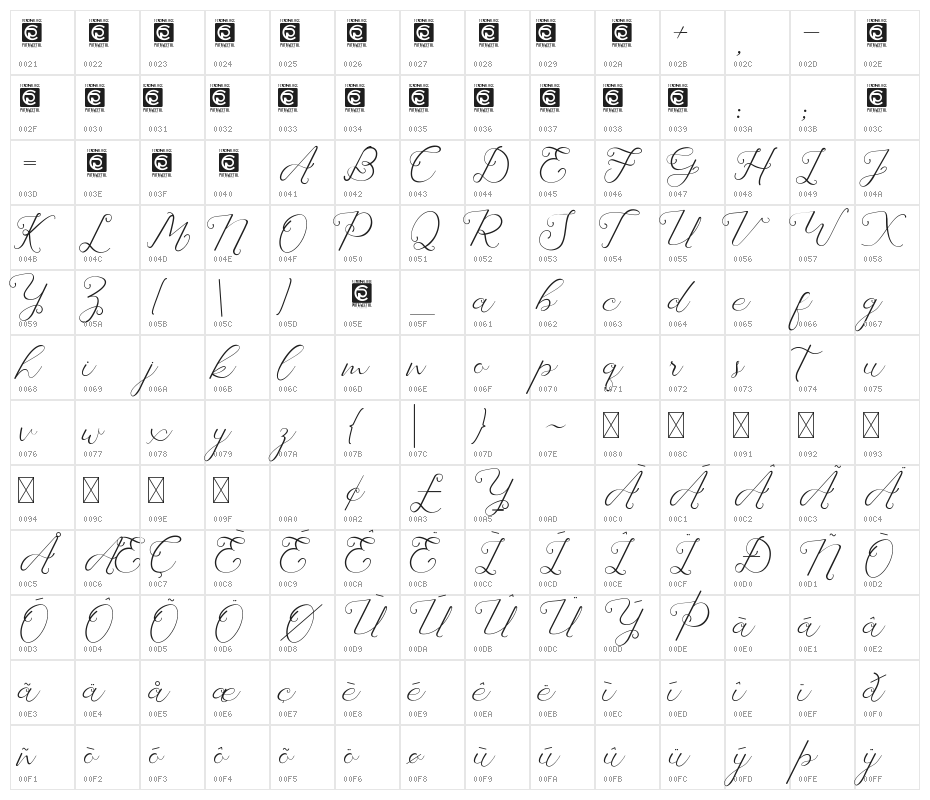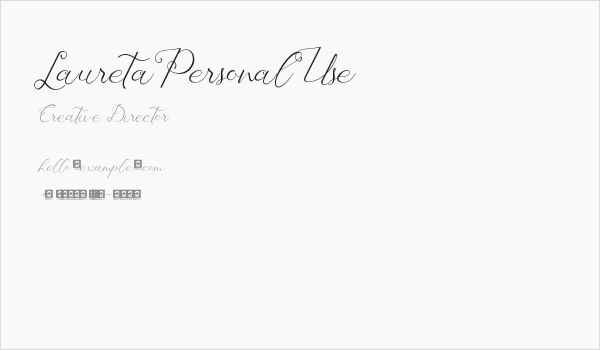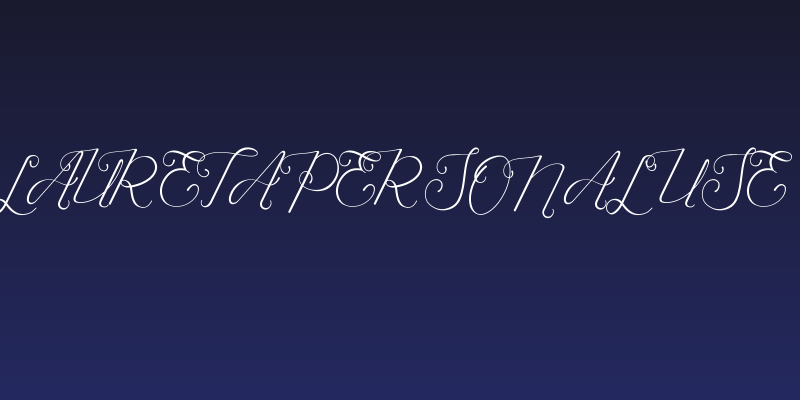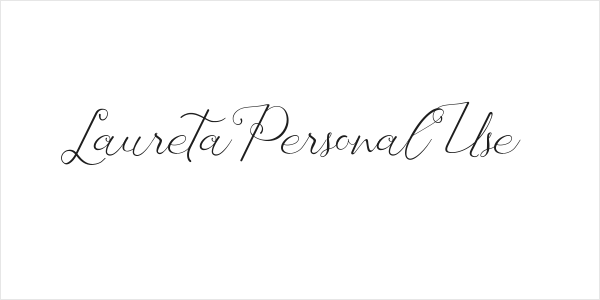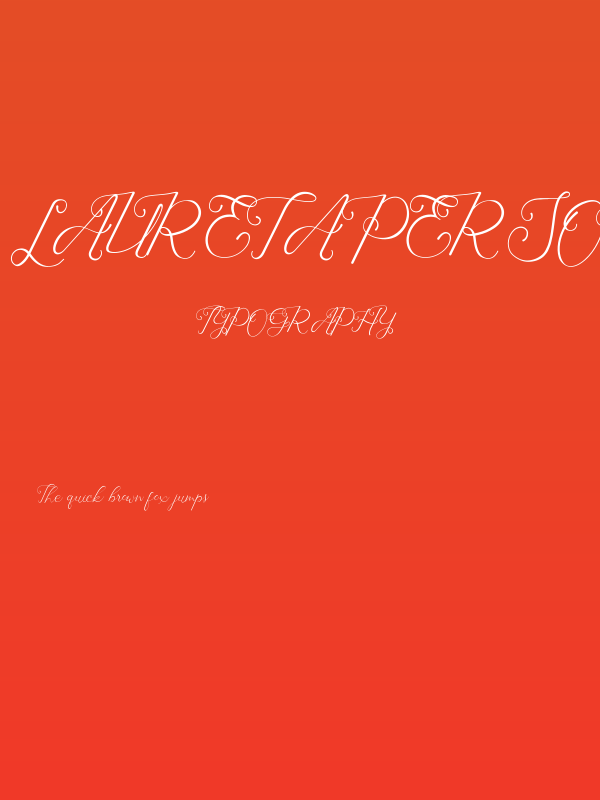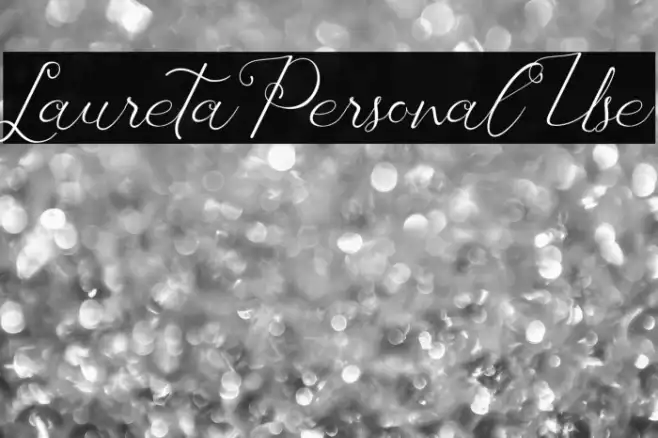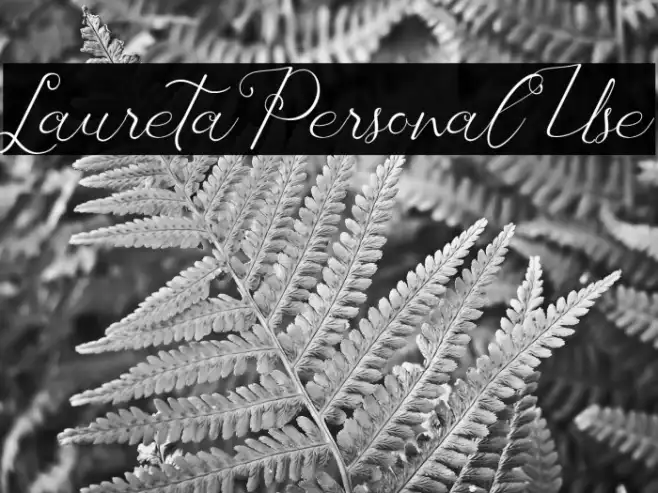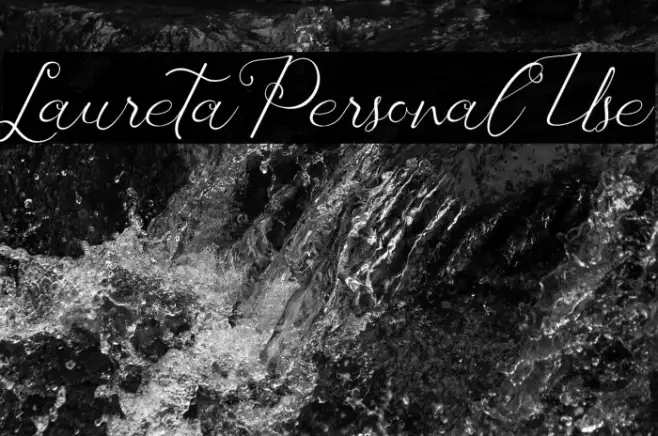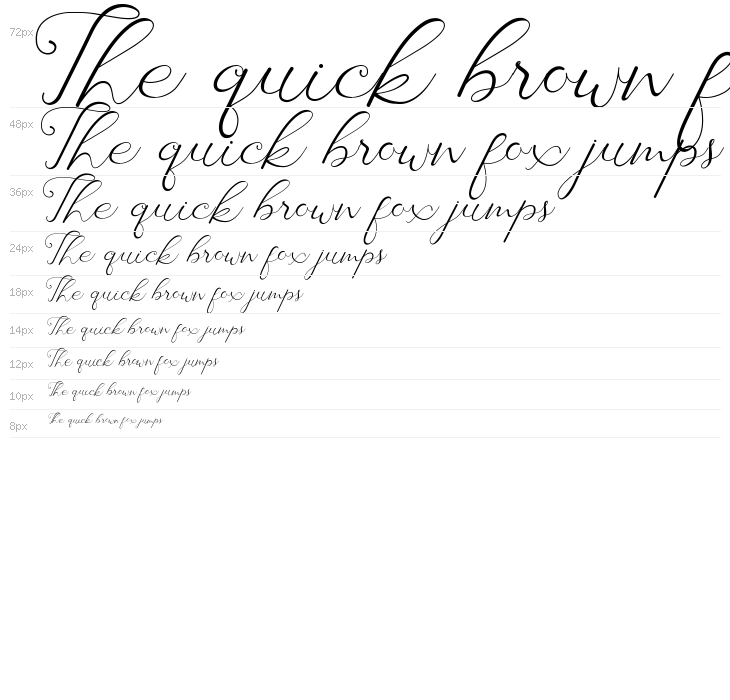
Laureta Personal Use Font
Laureta Personal Use Description
This elegant script font features flowing, cursive letters with a sophisticated and graceful appearance. The uppercase letters are adorned with delicate swashes and loops, adding a touch of flair and refinement. The lowercase letters maintain a consistent flow, with smooth connections between characters, enhancing readability while preserving the font's decorative nature. The numerals and special characters are crafted with the same attention to detail, ensuring a cohesive look across all text elements. This font is ideal for projects that require a personal, handwritten touch, such as invitations, greeting cards, or branding materials.
| Overall Style | Elegant, Decorative |
| Use Case | Headlines, Invitations, Branding |
| Proposed Projects | Ideal for wedding invitations, greeting cards, branding, and personal stationery. |